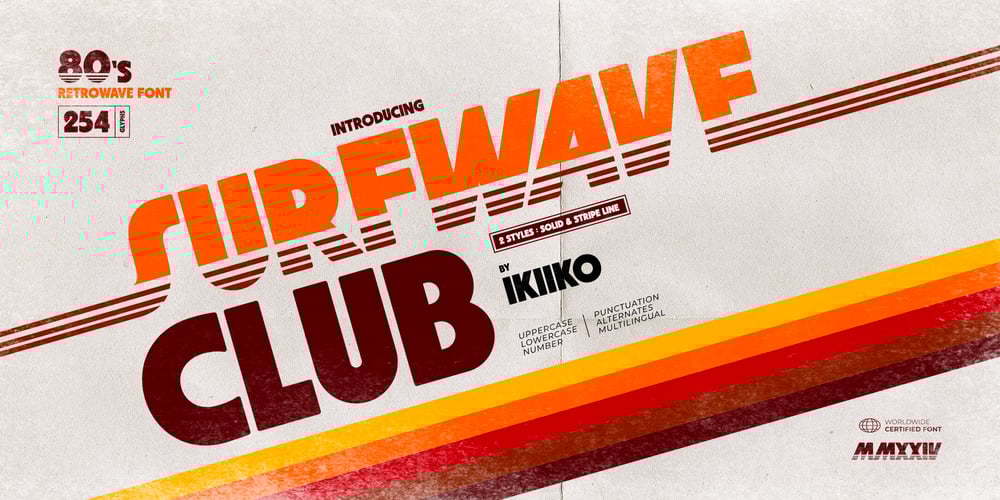
Surfwave Club Font Family was designed by Andhika Pradana and published by IKIIKOWRK. Surfwave Club contains 1 styles and family package options. Proudly Present Surfwave Club – 80s Retrowave Font, created by ikiiko.Surfwave Club is a bold and dynamic font inspired by the vibrant and nostalgic vibes of the 1980s retrowave culture. This font encapsulates the energetic spirit of the era with its striking lines and retro aesthetics. Ideal for projects that aim to evoke a sense of vintage cool, Surfwave Club is perfect for both digital and print designs.Surfwave Club offers both Solid and Stripe Line variations, allowing for versatile design applications. You can use pair this font with contrasting sans-serif fonts for a modern twist. Utilize the Stripe Line style for a more dynamic, movement-oriented design, or experiment with color gradients and neon effects to fully capture the 80s aesthetic.This typeface is perfect for an retro stuff like poster design, magazine layout, appareal, packaging product, quotes, or simply as a stylish text overlay to any background image.What’s Included? 2 Styles : Solid & Stripe Line Uppercase & Lowercase Numbers & Punctuation Alternates Multilingual Support Works on PC & Mac Get also a good offer & FREEBIE at our site : www.ikiiko.comEnjoy our font and if you have any questions, you can contact us by email : ikiikowrk@gmail.com